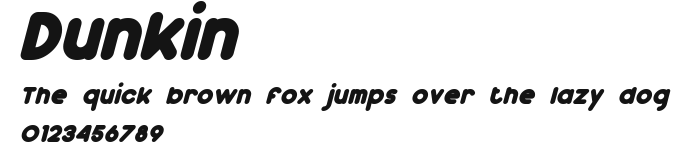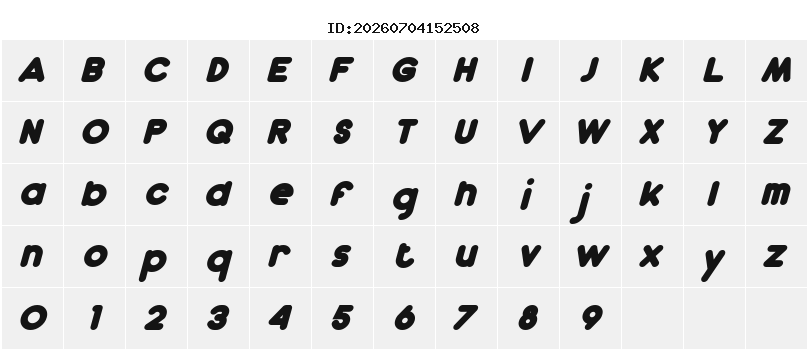
• Font Name: Dunkin
• Font ID: Dunkin Italic:Version 1.10
• Full Font Name: Dunkin Italic
• Version: Version 1.10 October 14, 2014
• PostScript Name: Dunkin-Italic
• Designer: Neale Davidson
About Dunkin.otf
Dunkin.otf is a modern, elegant sans-serif font designed for ultimate readability and visual harmony. Perfect for branding, headlines, web design, and print materials.